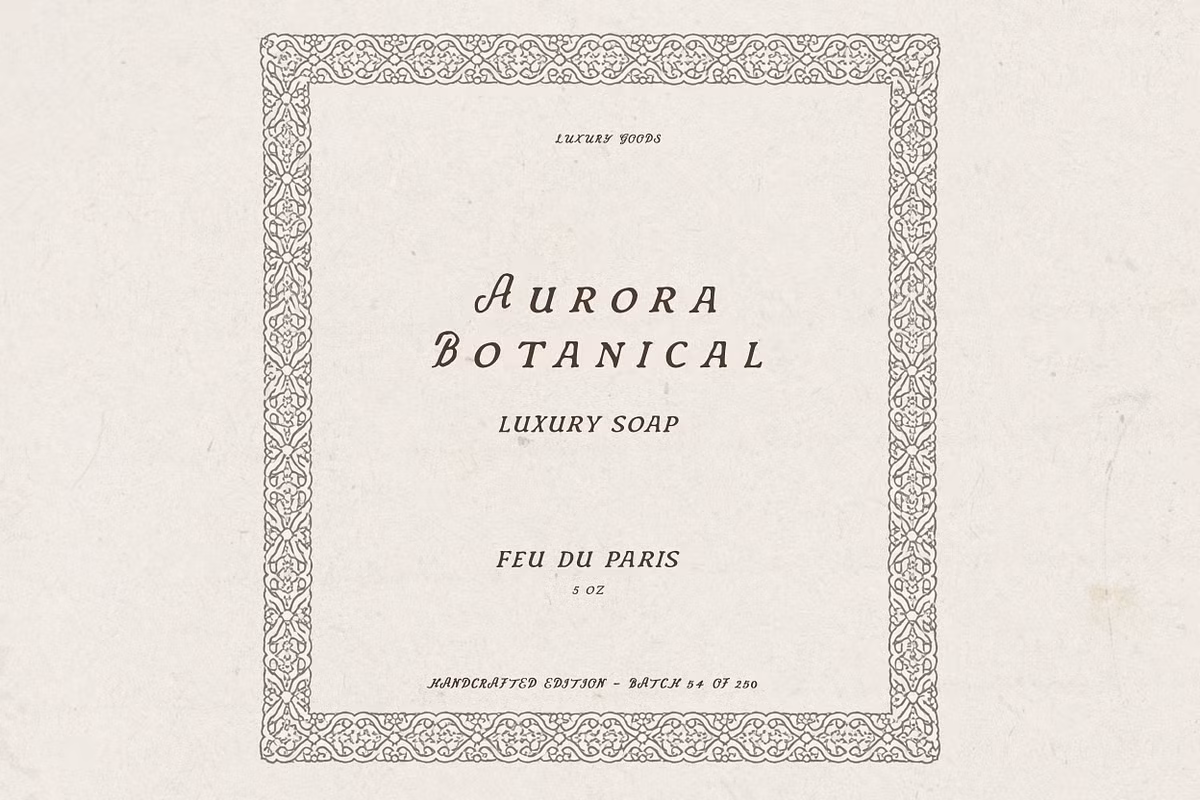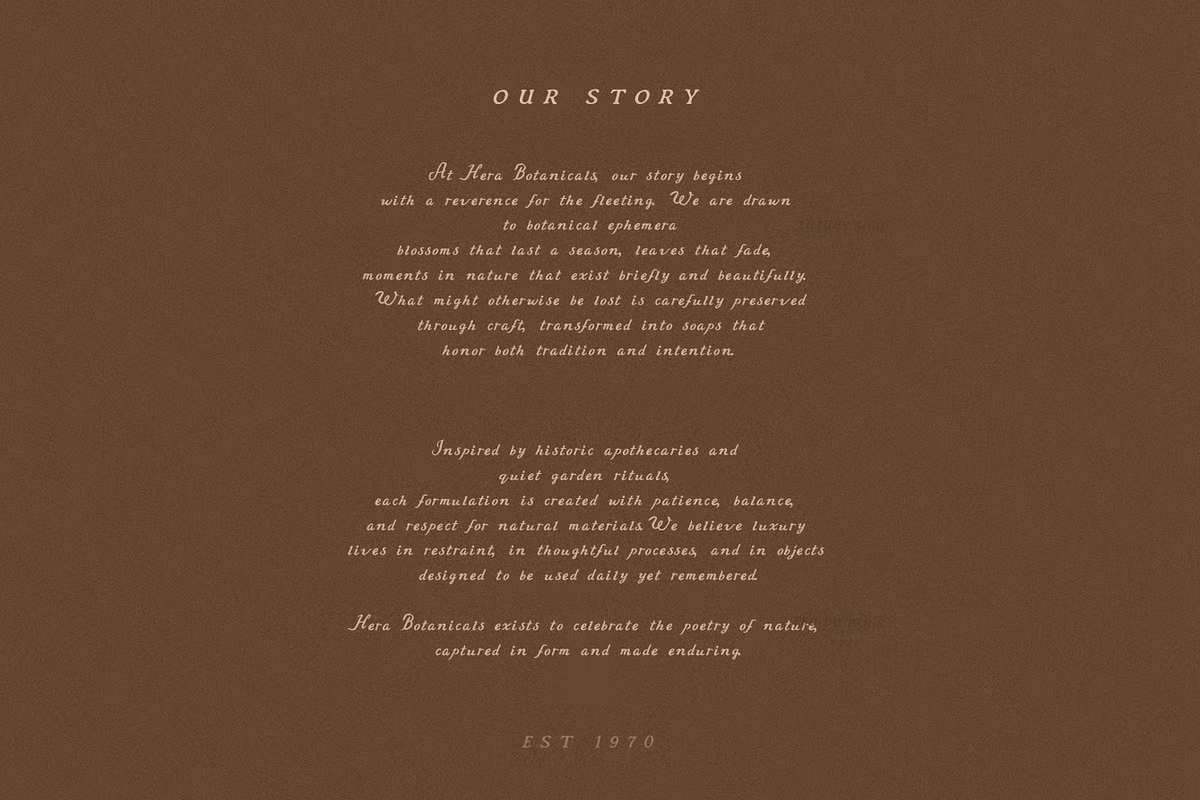
Discover the Antique Font Family: Rustic Serif Duo for Your Designs
Antique Font Family Rustic Serif Duo
Discover the Antique Font Family: Rustic Serif Duo for Your Designs
If you want to give your designs a hint of nostalgia and elegance the Antique Font Family can help. The Antique Font Family is a pair of serif fonts called Antique Press and Paperwhisper. Antique Press and Paperwhisper bring the feel of typography into design. I have used Antique Press and Paperwhisper for logos, book covers and posters and the Antique Font Family gave me the ability to shape my work and a look that lifted my projects. In this article you will discover the features of the Antique Font Family. You will learn how to use the Antique Font Family in your designs. You will also learn why the Antique Font Family is a part of your typography toolkit.
Visual representation of Antique Font Family in use
The Antique Font Family enhances design aesthetics.
The Inspiration Behind the Antique Font Family
The Antique Font Family takes its inspiration from the look of printing houses and old libraries. The Antique Font Family draws from notes and old books. The Antique Font Family captures the feel of a time. I feel the Antique Font Family brings a piece of history to my work. The designers made the fonts more, than letters. The designers wanted the fonts to give a sense of warmth and authenticity.
Antique Press: A Classic Letterpress Style
Antique Press is the serif font, in the pair. Antique Press has a letterpress look. Comes in three versions: regular bold and outline. Each version has its look. The versions all fit together. I like how Antique Press can work in projects. Here is why Antique Press is a choice:
• Style: I use the Regular Style for body text and headings. The Regular Style gives reading. Keeps a vintage feel.
• Bold Style: Use the option to highlight titles or important information. Bold Style makes your message stand out. I like to use Bold Style because Bold Style catches the eye.
• Outline Style: I use outline style when I want a look, in the design. I find outline style adds depth and a twist that changes the design.
Examples of Antique Press font styles
Different styles of Antique Press font showcased.
Paperwhisper: The Handwritten Touch
Paperwhisper goes well with the Antique Press. Paperwhisper is a font that adds an organic touch to your designs. Paperwhisper is perfect, for:
• Annotations: I use Paperwhisper for the footnotes. I use Paperwhisper for the side comments that need a touch.
• Quotes: I like to highlight the quotes so the quotes sound like a conversation and the quotes feel inviting. The quotes then feel warm and easy to read.
• Organic Accents: When I use Organic Accents I add a style to my designs. Organic Accents make the designs feel more approachable and relatable. Organic Accents work.
Practical Tips for Using the Antique Font Family
To make the most out of the Antique Font Family, consider these practical tips:
• Pairing Fonts: Combine Antique Press with Paperwhisper for a balanced design. Use Antique Press for headings and Paperwhisper for subheadings or captions.
• Color Palette: Use tones or muted colors to bring out the vintage feel. I find that the earthy tones and muted colors, like greens, browns and soft creams work well.
• Layout Considerations: Make sure there is space, around the text so the designs stay clean and easy to read. Vintage designs work best when they are simple.
Color palette suggestions for vintage designs
Color palettes that complement the Antique Font Family.
Where to Use the Antique Font Family
I find the Antique Font Family is versatile. I find the Antique Font Family works well for design projects. Here are some suggestions:
• Branding: Build the heritage brand identity that feels real. The heritage brand identity shows the history of the brand.
• Layouts: I use these fonts in the magazines or the brochures. The fonts let me tell a story or a theme clearly.
• Invitations: Perfect for weddings or other formal events, adding a touch of elegance to your invites.
The Antique Font Family is more, than a set of fonts. The Antique Font Family helps me tell a story, with letters. The Antique Font Family includes a serif duo. The rustic serif duo lets me make designs that look good and feel full of character and history. When I add Antique Press and Paperwhisper to my projects Antique Press and Paperwhisper bring a timeless feel that connects with people of all ages.